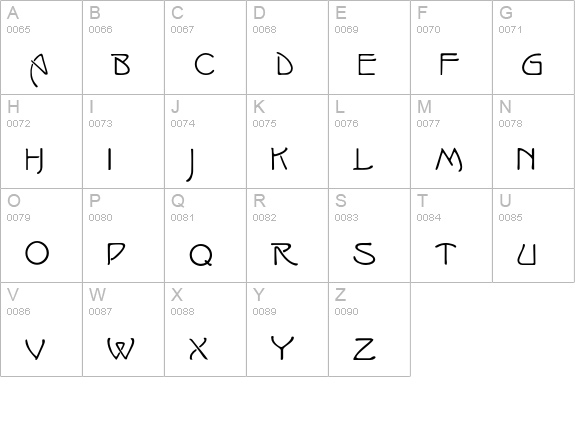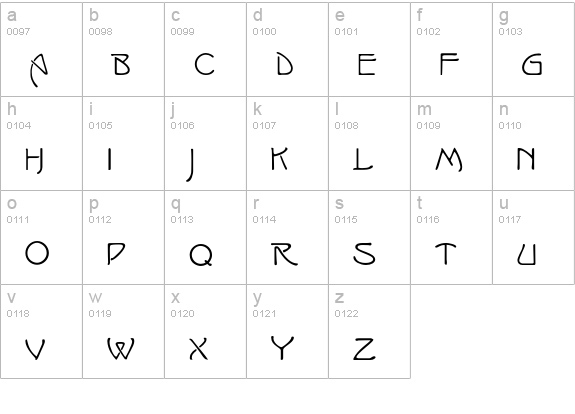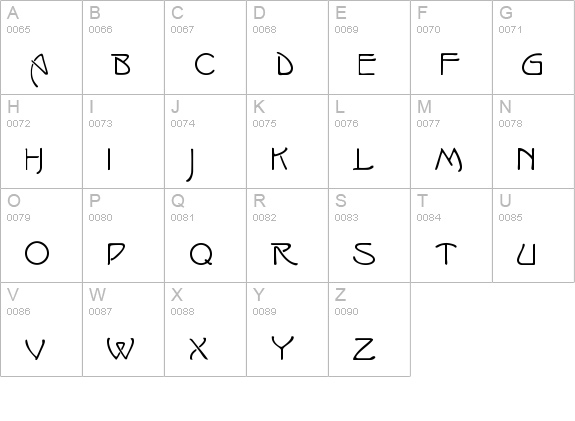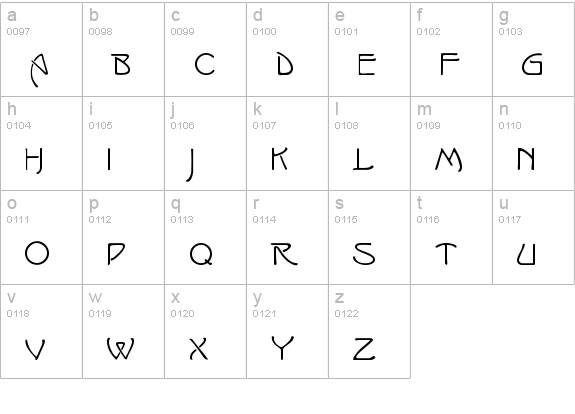
IsadoraCaps Font Details
IsadoraCaps font is a stunning and elegant typeface that exudes sophistication and charm. With its beautifully crafted letterforms and exquisite detailing, this font is perfect for adding a touch of class to any design project. Each letter is meticulously designed with delicate curves and graceful lines, giving IsadoraCaps font a timeless and refined aesthetic. Its tall and slender characters are reminiscent of classic calligraphy, adding an air of elegance and sophistication to any text. IsadoraCaps font is versatile and can be used for a wide range of design applications. Whether you're creating wedding invitations, logo designs, or elegant branding materials, this font will elevate your work to new heights. The best part is that IsadoraCaps font is available for free download at FontsMarket.com. This means that you can easily access this beautiful typeface without any cost. Simply visit FontsMarket.com, search for IsadoraCaps font, and start using it in all of your design projects. With IsadoraCaps font, you have the freedom to create stunning and professional designs without breaking the bank. So why wait? Download IsadoraCaps font today and elevate your designs with its timeless beauty and elegance.